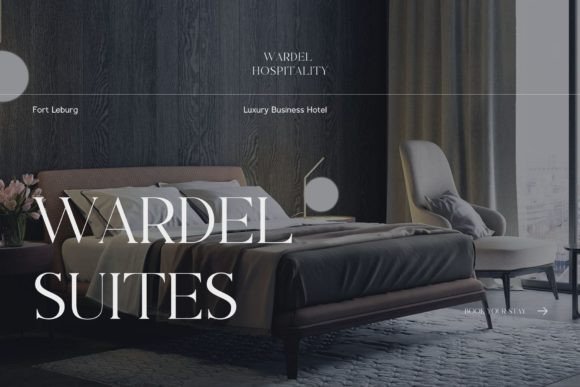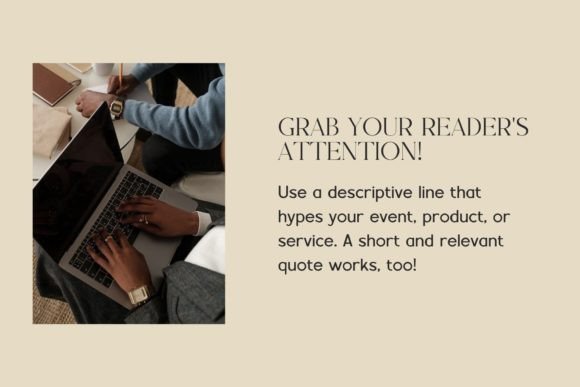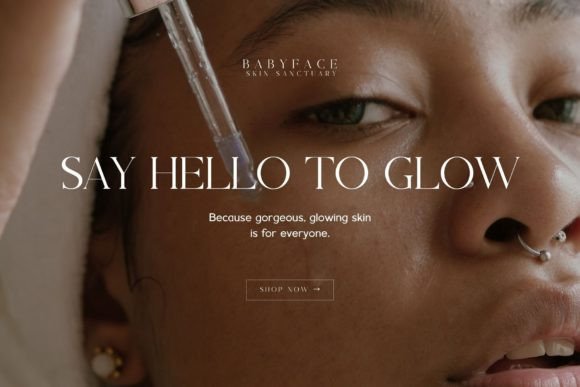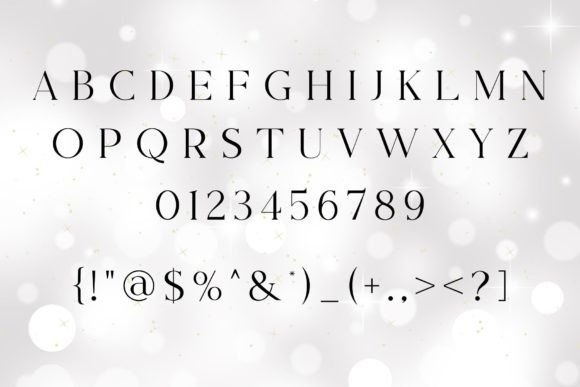
Introduction to Saquero Font
As a designer, have you ever been stuck on a creative project, searching for the perfect font to bring your vision to life? You scroll through countless options, but nothing seems to capture the essence of your idea. That’s where the stunning Saquero Font comes in – a beautifully crafted series of letters that will elevate your designs and leave a lasting impression.
With its modern and elegant design, the Saquero Font is the perfect addition to any design resource. Whether you’re working on a high-end project or a personal creative endeavor, this font is sure to impress. And the best part? It’s available for free download, making it an accessible and valuable resource for designers of all levels.
From its transparent background to its high-quality design, the Saquero Font is a game-changer for any creative project. Its tidiness and attention to detail make it a must-have for designers who demand only the best. So why settle for anything less when you can have the Saquero Font – a true gem in the world of design?
Key Features of Saquero Font
- High-quality font with a unique, modern design suitable for creative projects and design resources.
- Features a transparent background, allowing for seamless integration with various design elements and backgrounds.
- Designed with precision and attention to detail, resulting in a crisp and clear font with high resolution.
- Available in a range of sizes, from 18px to 72px, making it suitable for various design applications.
- Perfect for designers and artists working on creative projects, including graphic design, digital art, and more.
Honest Review: Saquero Font
As a designer, I’m always on the lookout for high-quality fonts to elevate my creative projects. Recently, I stumbled upon the Saquero Font, and I’m excited to share my thoughts on this design resource.
What works well about the Saquero Font is its versatility. It comes in various styles, from elegant to modern, making it suitable for a wide range of design projects. I particularly appreciate its transparent background, which allows for seamless integration with any design element. The font is also available for free download, which is a major plus for designers on a budget.
- ✨ High-quality design
- ✨ Versatile styles
- ✨ Transparent background
However, I do have some reservations about the Saquero Font. The font’s legibility can be affected by the size and spacing, which may require some tweaking to get right. Additionally, the font’s range of weights may be limited compared to other high-end fonts.
Overall, I’m impressed with the Saquero Font’s potential to elevate my design projects. While it may have some limitations, its high-quality design and versatility make it a valuable resource for any designer. If you’re looking for a free download to add some flair to your creative project, the Saquero Font is definitely worth checking out.
In Adobe Photoshop or Illustrator, import the Saquero Font file and use it to create custom text elements. Experiment with different font sizes, colors, and effects to get the most out of this versatile design resource. The Saquero Font’s high quality and transparent background make it an ideal choice for creative projects that require precision and attention to detail.
Designing in PowerPoint/Word
In PowerPoint or Word, use the Saquero Font to add a touch of professionalism to your presentations or documents. Upload the font file and select it as the primary font for your project. Use the font’s high quality and transparent background to create visually appealing headings and titles that will engage your audience.
The Saquero Font is ideal for a wide range of creative projects, including business presentations, marketing materials, and editorial designs. Its high quality and transparent background make it a popular choice among designers and creatives.
Tips for Getting the Most Out of Saquero Font
To get the most out of the Saquero Font, experiment with different font sizes, colors, and effects. Use the font’s transparent background to create visually appealing compositions and designs. Don’t forget to download the font from a reputable design resource website to ensure high quality and compatibility with your design software.
What are the technical specifications of the Saquero Font, and what makes it high quality?
The Saquero Font features a high level of detail and a transparent background, making it ideal for use in creative projects that require a high level of visual sophistication. The font is built with a large character set, including a wide range of languages and symbols, and is optimized for use at various font sizes and resolutions.